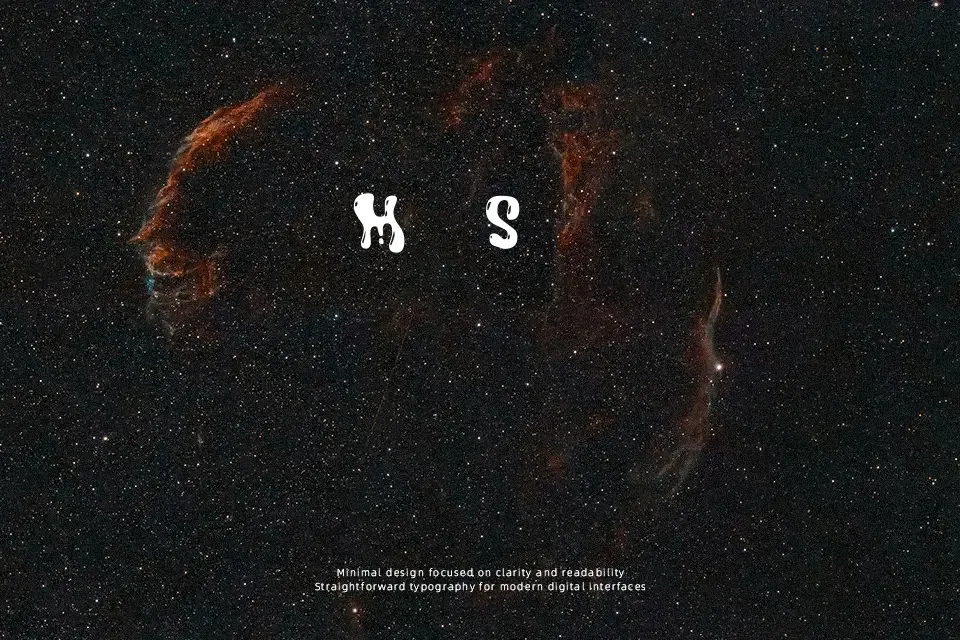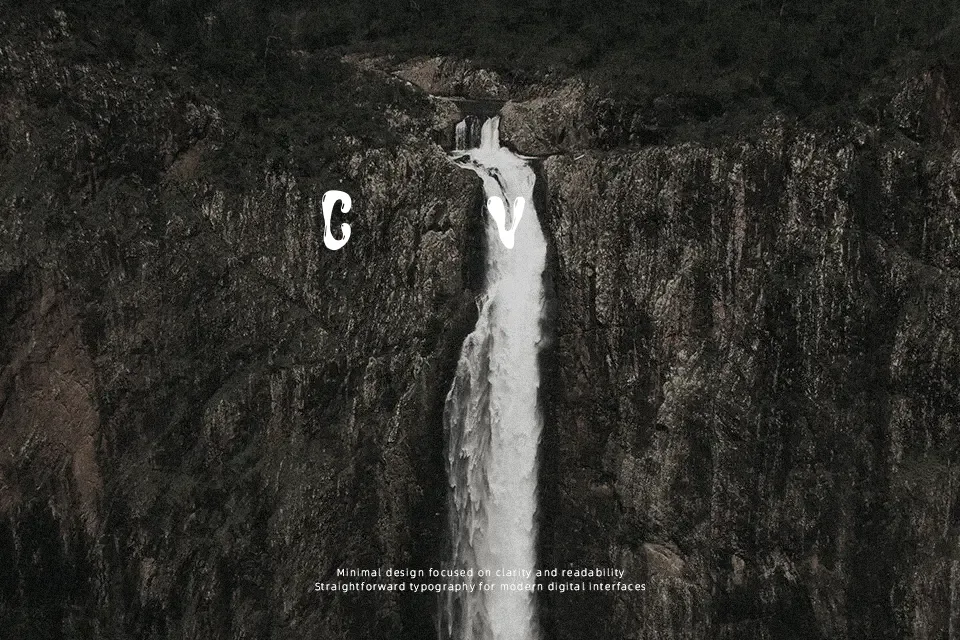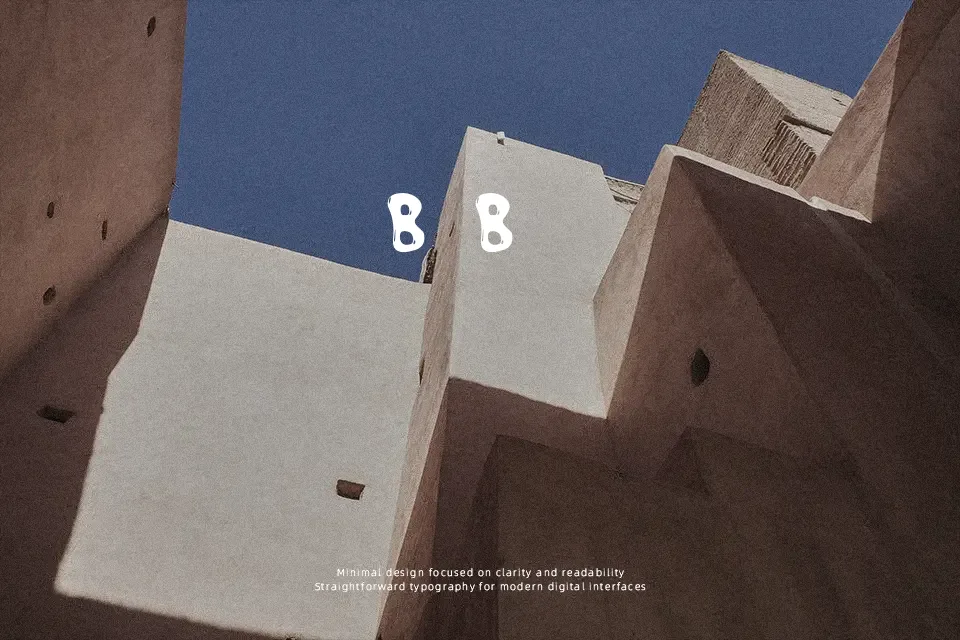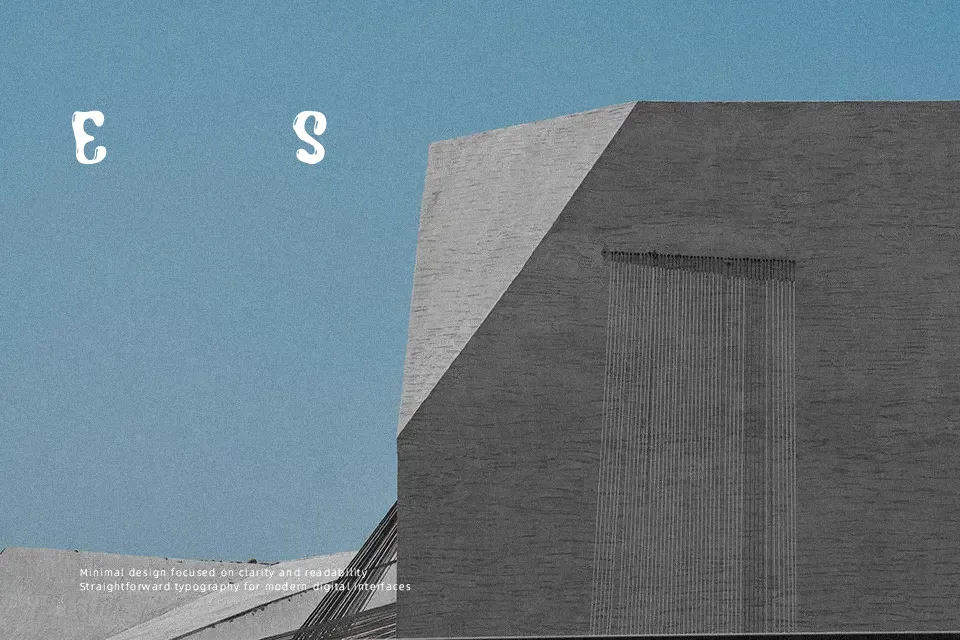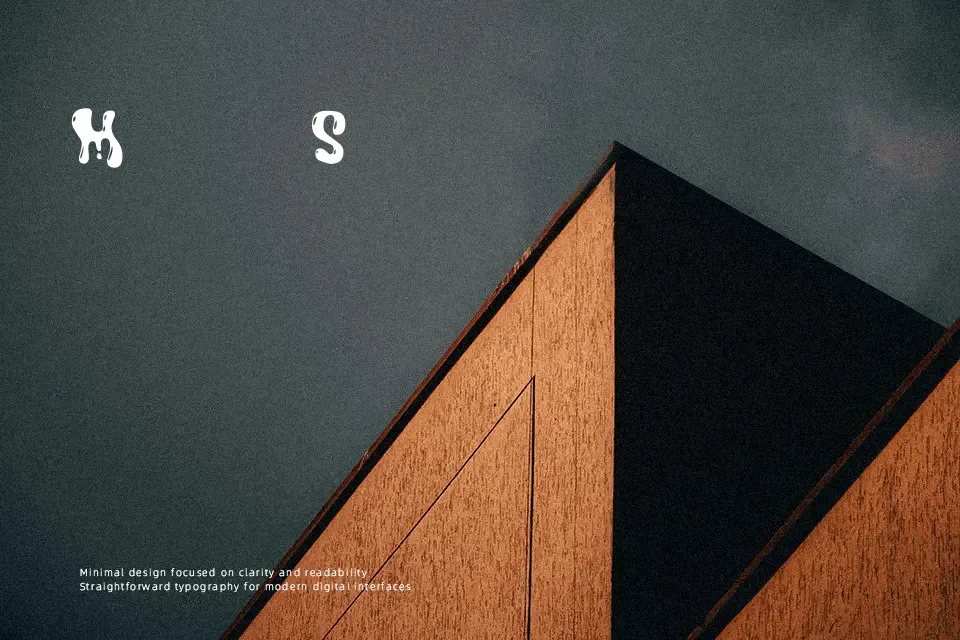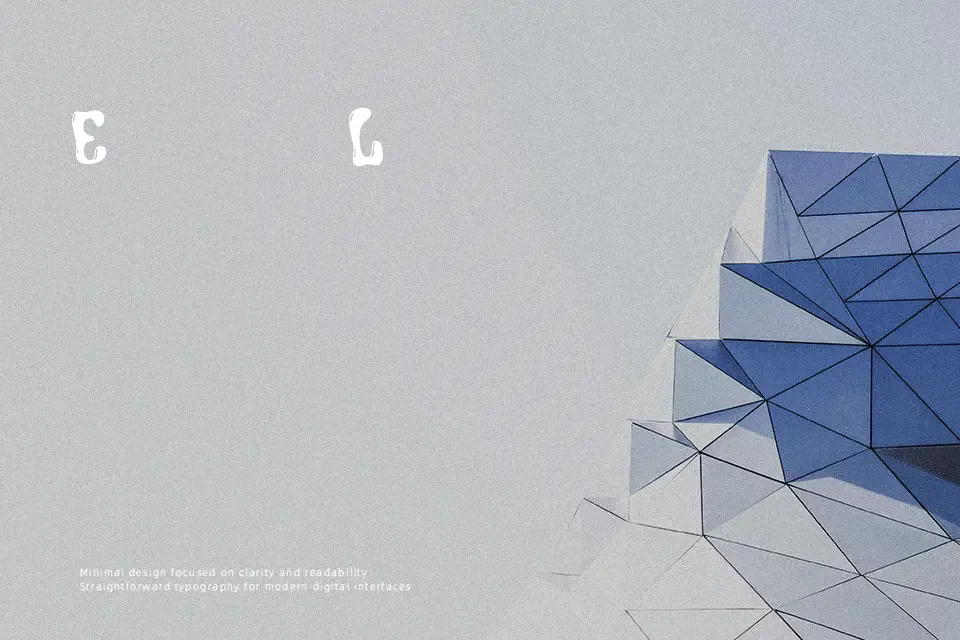
Caramels Font
Caramels Font delivers an expressive display presence characterized by inflated, rounded silhouettes and heavy stroke weights. The letterforms feature thick contours with tight inter-character spacing, creating dense word blocks that capture immediate attention. Proportions remain wide and bold across all uppercase characters, giving headlines substantial visual weight. Readability stays crisp when rendered in large titles, though the bulbous geometry quickly compromises legibility at smaller scales. This design excels in vibrant sticker graphics, poster titles, and confection packaging. Extended paragraphs or compact interface labels are not suitable due to the lack of internal counter space.
Best For: candy packaging, music festival posters, apparel graphics, sticker designs
Not Ideal For: long paragraph text, small interface labels, dense editorial layouts, technical documentation
Perfect for advertising, headline, and logo, with a bold and decorative style.